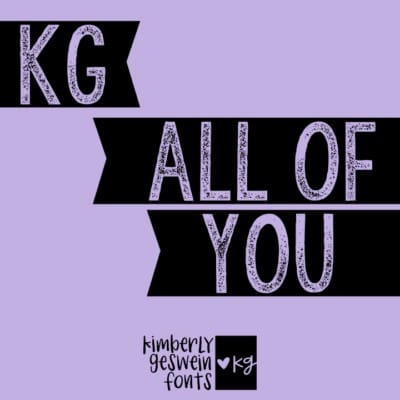
KG All of You Font
KG All of You Font is a fun stamped font created by Kimberly Geswein in 2025. The stampy interior letter is based on KG All of Me. Create spaces using the vertical bar key (shares a key with the backslash on most keyboards) create end pieces with the [ and ] keys.